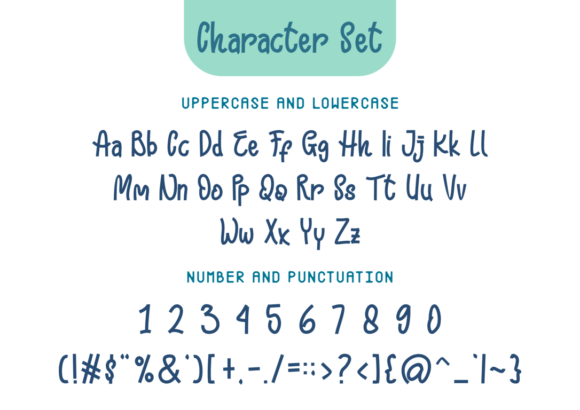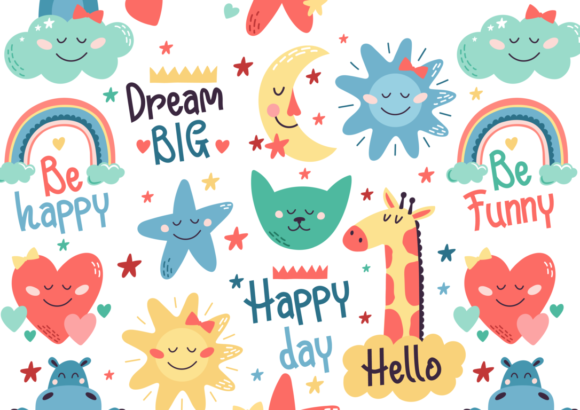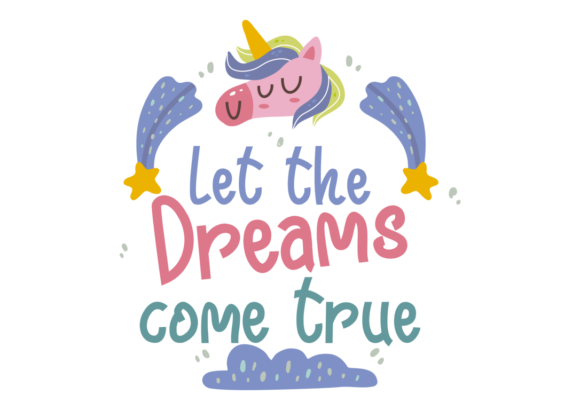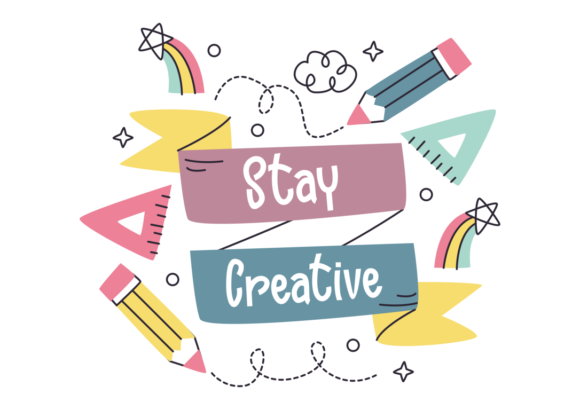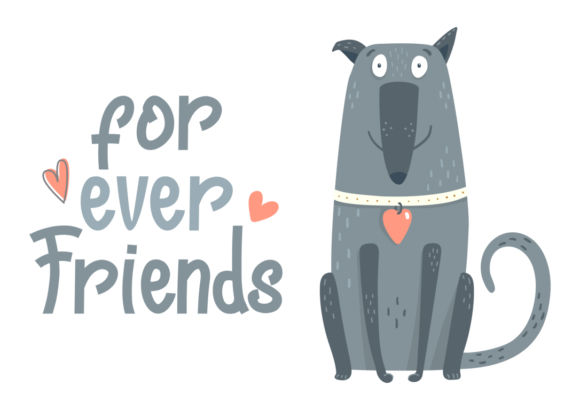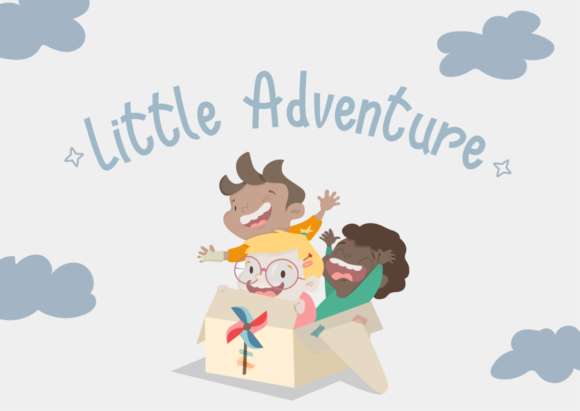
Gods Truck Font: The Perfect Playful and Fun Handwritten Font for Your Creative Projects
Are you a designer or crafter looking for a unique and eye-catching font to add a personal touch to your creative projects? Look no further than Gods Truck Font! This playful and fun handwritten font is sure to beautifully complement each of your lovely creative projects, adding a dash of personality and whimsy to your designs.
What is Gods Truck Font?
Gods Truck Font is a carefully crafted handwritten font that exudes a sense of playfulness and fun. Its unique and quirky design makes it perfect for a wide range of creative projects, from DIY crafts and party decorations to digital designs and marketing materials. With its bold and expressive letters, Gods Truck Font is sure to add a touch of personality to any design.
Key Features of Gods Truck Font
- Playful and Fun Design: Gods Truck Font features a playful and fun design that’s perfect for creative projects that require a personal touch.
- Handwritten Style: This font boasts a beautiful handwritten style that’s reminiscent of handwritten notes and letters.
- Unique and Quirky: Gods Truck Font has a unique and quirky design that sets it apart from more traditional fonts.
- Bold and Expressive Letters: The font features bold and expressive letters that are sure to grab attention.
- Easy to Read: Despite its playful design, Gods Truck Font is easy to read and understand, making it perfect for use in a wide range of creative projects.
Uses for Gods Truck Font
Gods Truck Font is a versatile font that can be used in a wide range of creative projects, including:
- DIY Crafts: Add a personal touch to your DIY crafts, such as handmade cards, gift tags, and decorations.
- Party Decorations: Use Gods Truck Font to create fun and playful party decorations, such as banners, signs, and invitations.
- Digital Designs: Add a touch of personality to your digital designs, such as social media graphics, blog posts, and marketing materials.
- Handmade Products: Use Gods Truck Font to add a personal touch to your handmade products, such as labels, packaging, and branding materials.
Tips for Using Gods Truck Font
Here are a few tips for using Gods Truck Font in your creative projects:
- Pair with Other Fonts: Pair Gods Truck Font with other fonts to create a unique and eye-catching design.
- Use in Combination with Images: Use Gods Truck Font in combination with images to add a personal touch to your designs.
- Keep it Simple: Don’t be afraid to keep it simple and use Gods Truck Font on its own to create a bold and eye-catching design.
| Font Name | Gods Truck Font |
In conclusion, Gods Truck Font is a playful and fun handwritten font that’s perfect for designers and crafters looking to add a personal touch to their creative projects. With its unique and quirky design, bold and expressive letters, and easy-to-read style, Gods Truck Font is sure to beautifully complement each of your lovely creative projects. So why not give it a try and see the difference it can make in your designs?